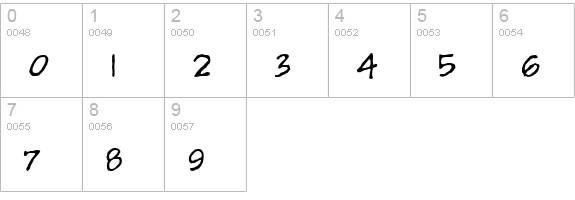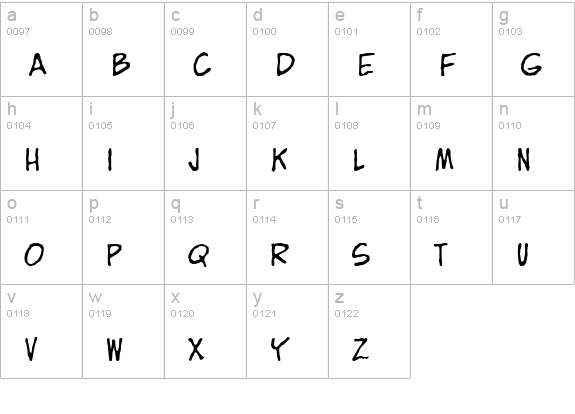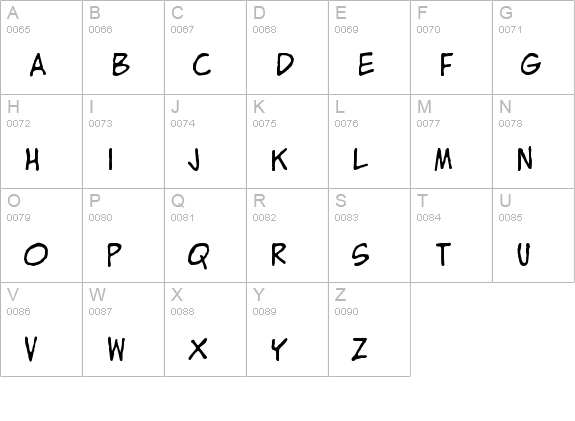
ZITZ Font Details
ZITZ font is a striking and modern typeface that is perfect for adding a touch of contemporary flair to your designs. Its unique blend of sharp edges and bold letterforms make it stand out in any project. ZITZ font is not only visually appealing, but also highly versatile, making it suitable for a wide range of design applications. The best part? ZITZ font is completely free to download at FontsMarket.com! Whether you're working on a branding project, poster design, or website layout, this font is sure to make a statement and elevate your work to the next level. Don't miss out on this opportunity to enhance your designs with the sleek and stylish ZITZ font.